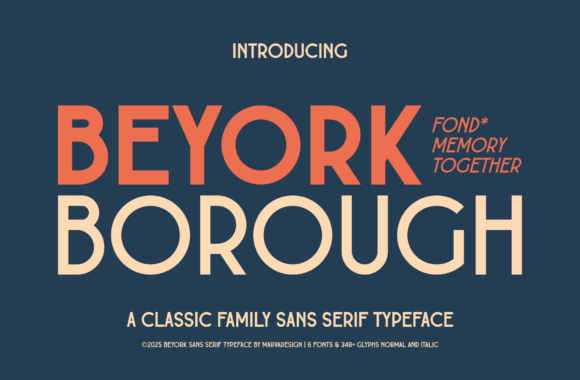
Introducing Beyork Font: The Epitome of Elegance and Strength in Typography
In the realm of typography, the right font can elevate a design from ordinary to extraordinary. For those seeking a classic sans serif font that embodies both elegance and strength, look no further than Beyork. This versatile font family is designed to bring sophistication to a wide array of applications, from branding and editorial design to logos and high-end marketing materials.
The Design Philosophy of Beyork
Beyork strikes a perfect balance between modernity and timelessness, making it an excellent choice for designers who aim to create a lasting impression. The font’s design is characterized by its clean lines, simple shapes, and a unique charm that sets it apart from other sans serif fonts. This balance ensures that Beyork remains relevant across various platforms and design trends.
The Beyork Font Family
The Beyork font family comprises six distinct styles: Regular, Italic, Semibold, Semibold Italic, Bold, and Bold Italic. This range of styles provides designers with the flexibility to use Beyork in a multitude of contexts, from subtle, elegant text to bold, attention-grabbing headlines. Whether you’re designing a corporate brand identity, a magazine, or an advertising campaign, Beyork offers the versatility needed to achieve your creative vision.
Distinctive Characteristics of Beyork
One of the standout features of Beyork is its distinctive lowercase letters, which give the font a unique personality. These characters not only enhance the readability of the text but also add a layer of visual appeal that can make any design stand out. The attention to detail in the design of Beyork ensures that it conveys a sense of elegance and sophistication, making it ideal for high-end applications.
Applications of Beyork
Beyork’s versatility makes it suitable for a wide range of applications. Here are some of the areas where Beyork truly shines:
- Branding: Use Beyork to create a strong, elegant brand identity that communicates sophistication and class.
- Editorial Design: Beyork’s clarity and readability make it perfect for magazines, newspapers, and digital publications.
- Logos: The unique charm of Beyork can help create memorable and impactful logos that stand out.
- Marketing Materials: For brochures, flyers, and other marketing materials, Beyork offers a professional look that can elevate your brand’s message.
Why Choose Beyork?
Choosing Beyork for your typography needs comes with several advantages:
- Elegance and Strength: Beyork combines these two qualities in a way that is hard to find in other fonts, making it perfect for designs that require a touch of sophistication.
- Versatility: With six styles to choose from, Beyork can be used across a variety of design projects.
- Readability: The distinctive characteristics of Beyork’s letters ensure that your text is not only elegant but also highly readable.
- Timelessness: Beyork’s design ensures that your work remains relevant and stylish for years to come.
Beyork is more than just a font; it’s a design statement. Its classic sans serif design, combined with its elegance and strength, makes it an excellent choice for designers looking to create sophisticated and impactful designs. With its versatile range of styles and timeless appeal, Beyork is poised to become a go-to font for branding, editorial design, logos, and high-end marketing materials. Whether you’re a seasoned designer or just starting out, Beyork offers the tools you need to convey your message with clarity and elegance.
Future of Typography with Beyork
The introduction of Beyork into the world of typography marks a significant milestone. As design trends continue to evolve, fonts like Beyork will play a crucial role in shaping the visual landscape. With its unique blend of elegance, strength, and versatility, Beyork is not just a font but a tool for designers to push the boundaries of creativity and expression.
Beyork in Digital Design
In the digital age, typography plays a critical role in user experience (UX) and user interface (UI) design. Beyork, with its clarity and readability, is an excellent choice for digital platforms, including websites, mobile apps, and digital marketing materials. Its adaptability across different screen sizes and resolutions ensures that your digital content looks professional and engaging.
Beyork: A Design Investment
Investing in high-quality typography like Beyork can have a significant impact on your design’s success. It’s a testament to your commitment to quality and attention to detail. In a world where visual content is king, having a distinctive and elegant font like Beyork can set your brand apart from the competition.